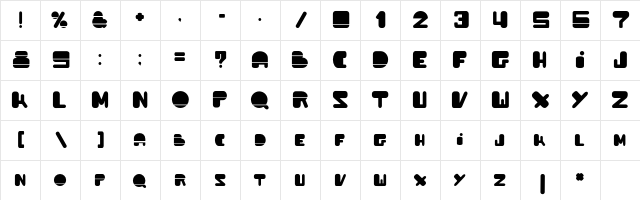
Powda Regular Free Font
Powda Regular
Foundry: David Whitmer
Designer: David Whitmer
Design Context for Powda
Powda is a composed and adaptable typeface that performs quietly and consistently across a wide range of design contexts.